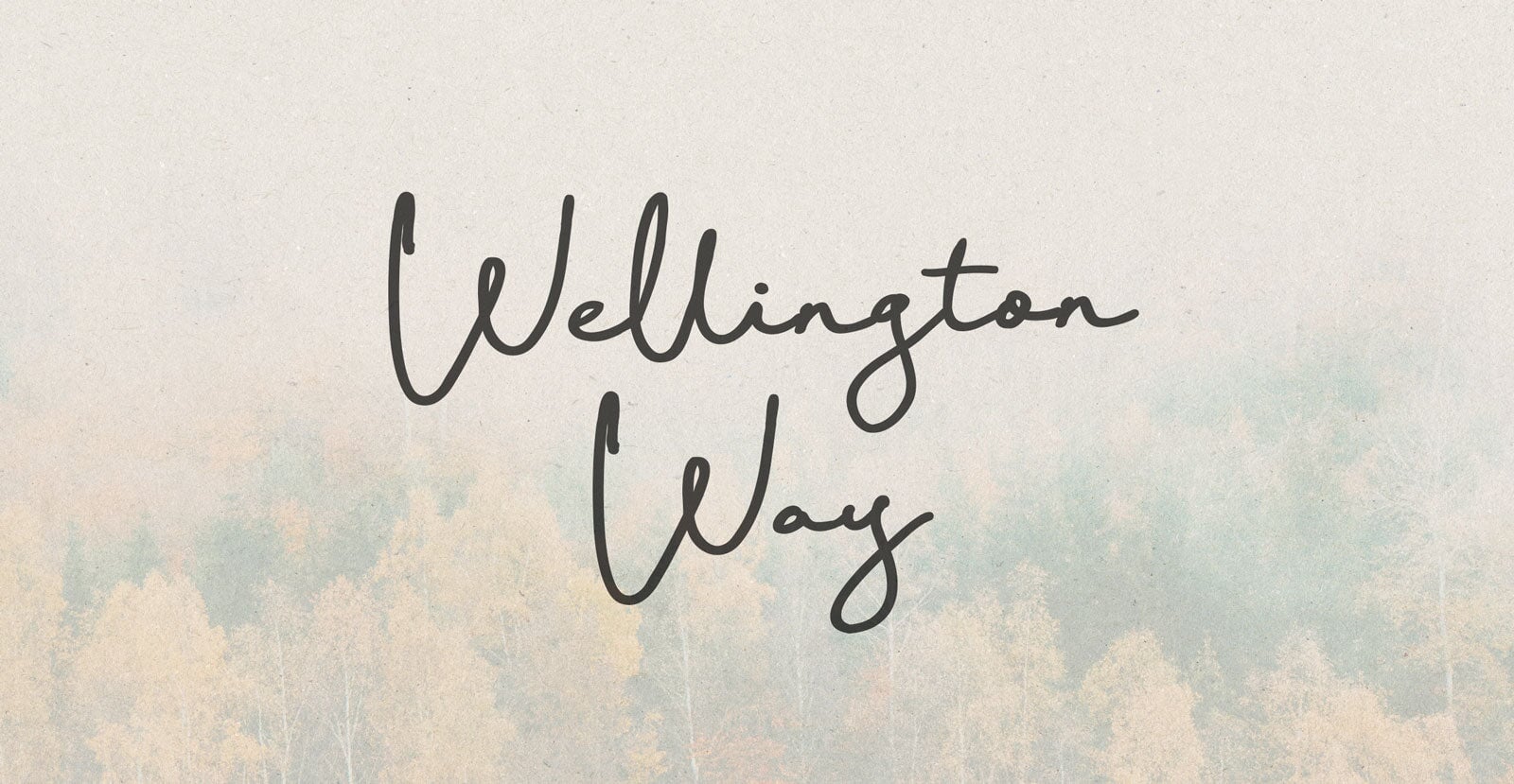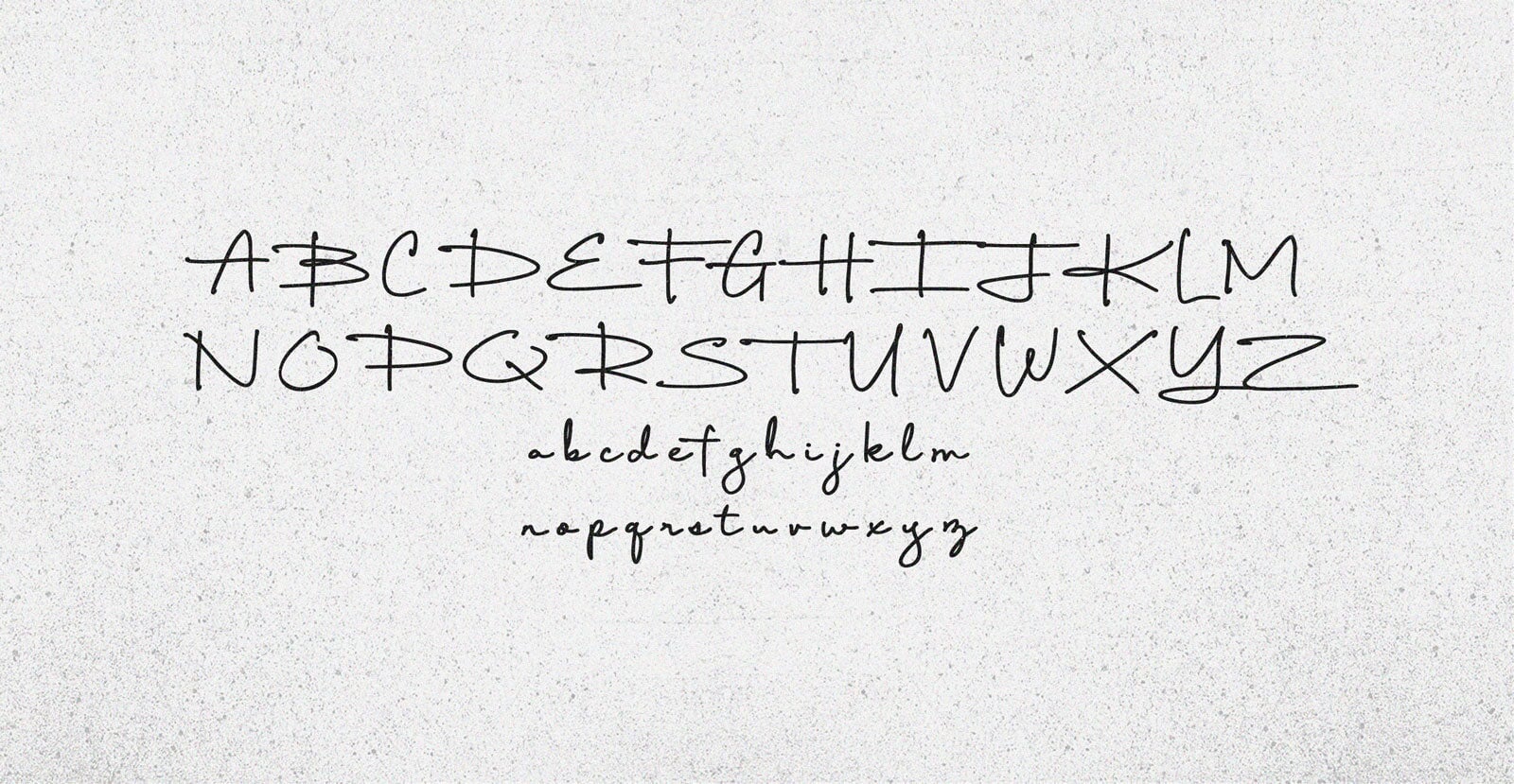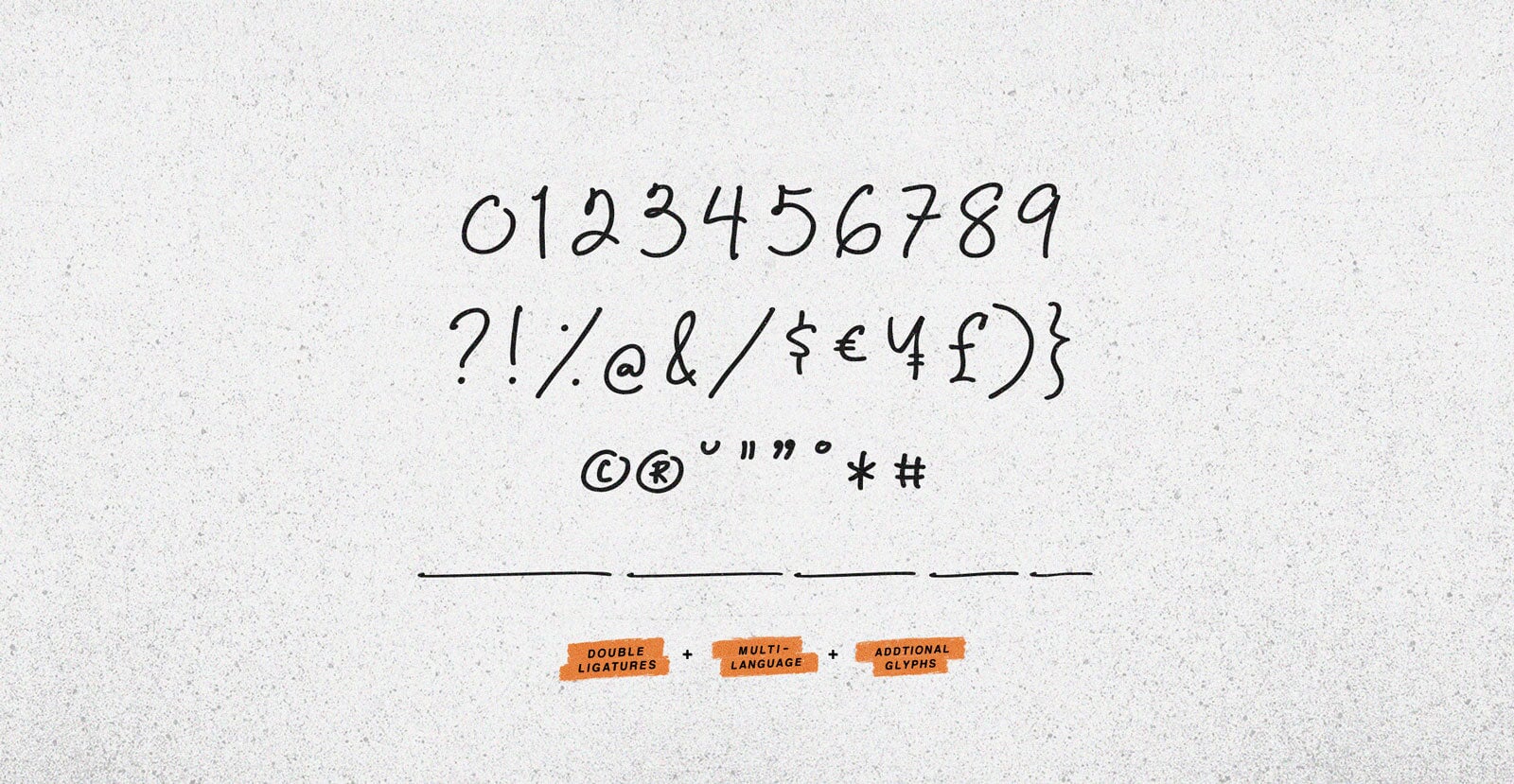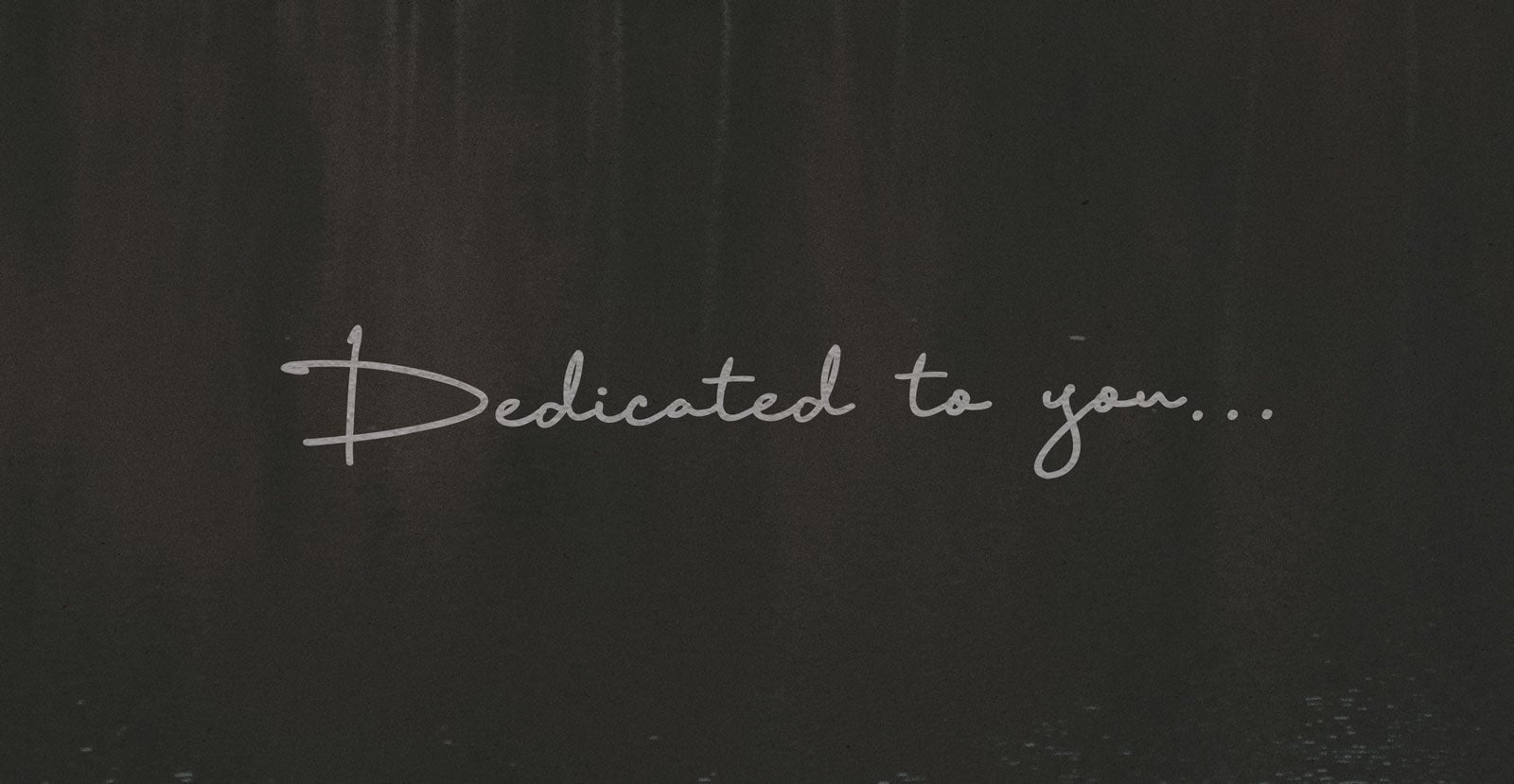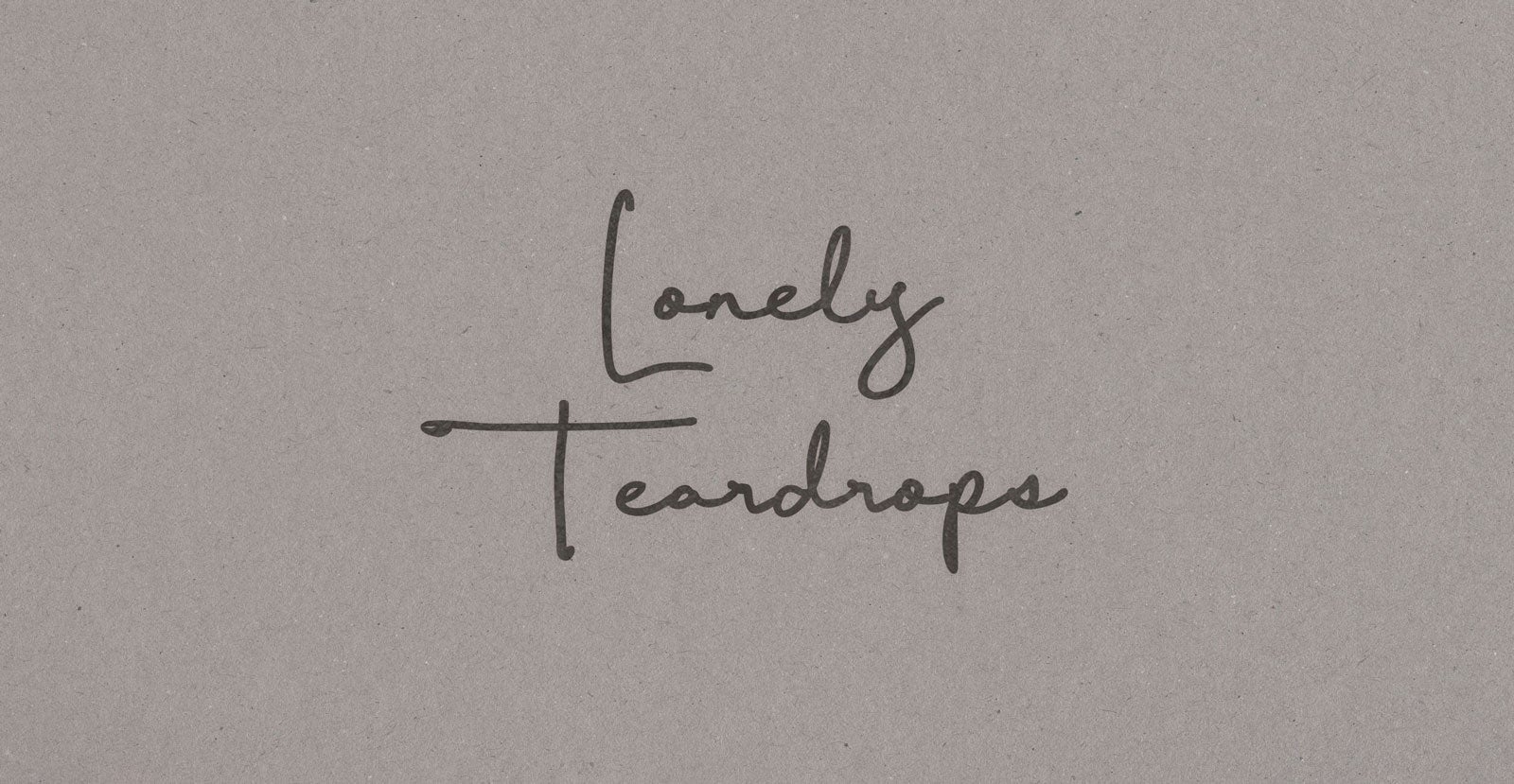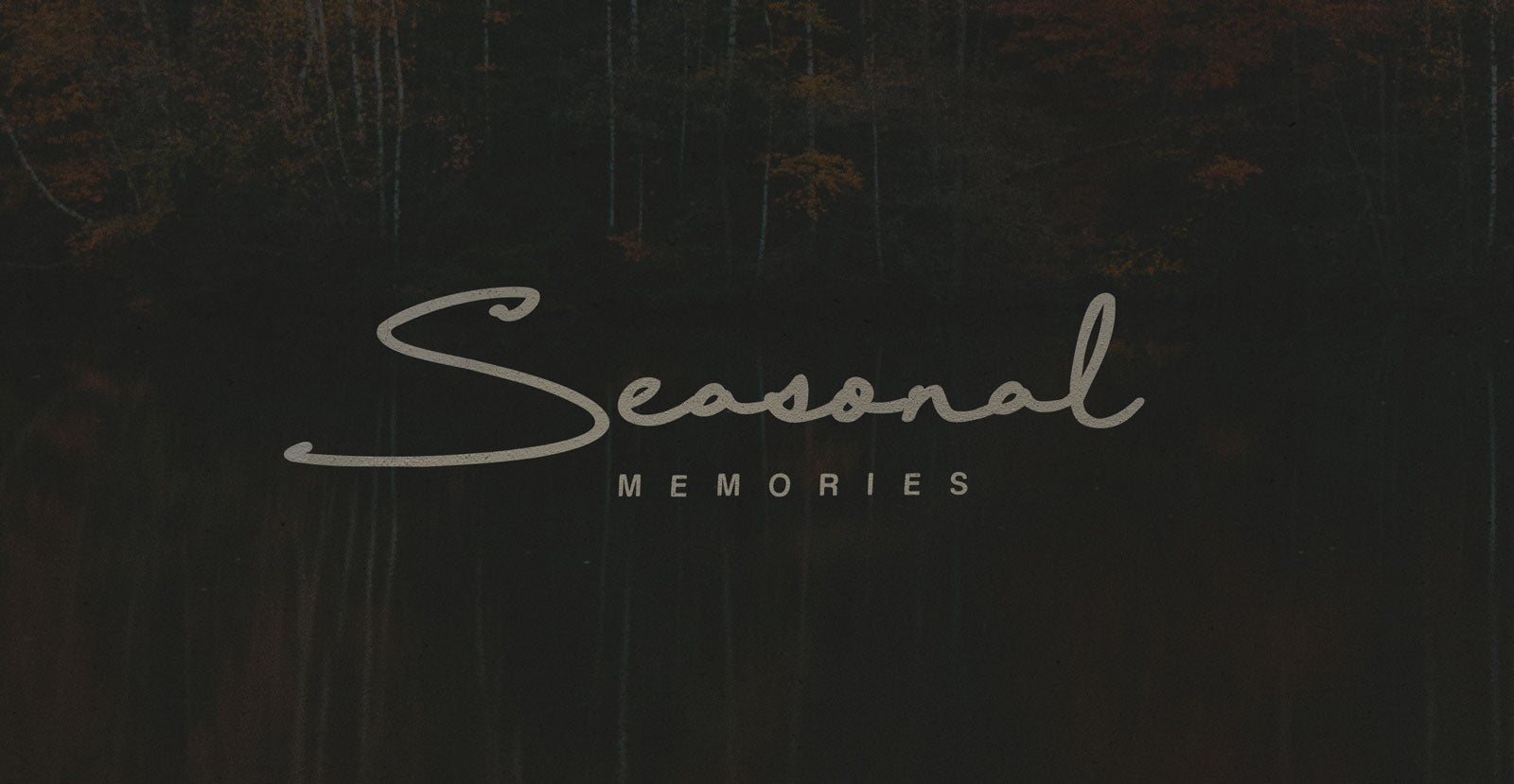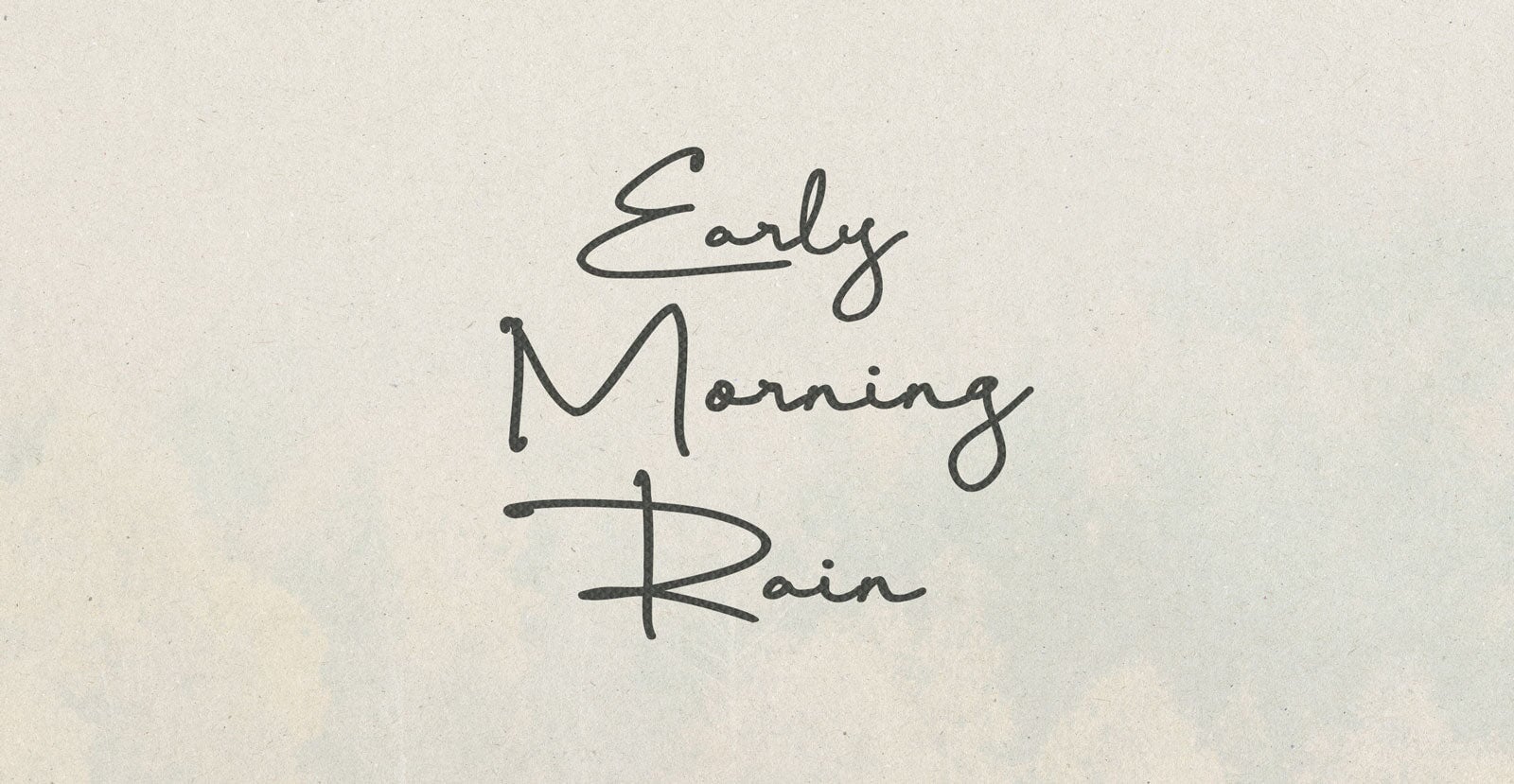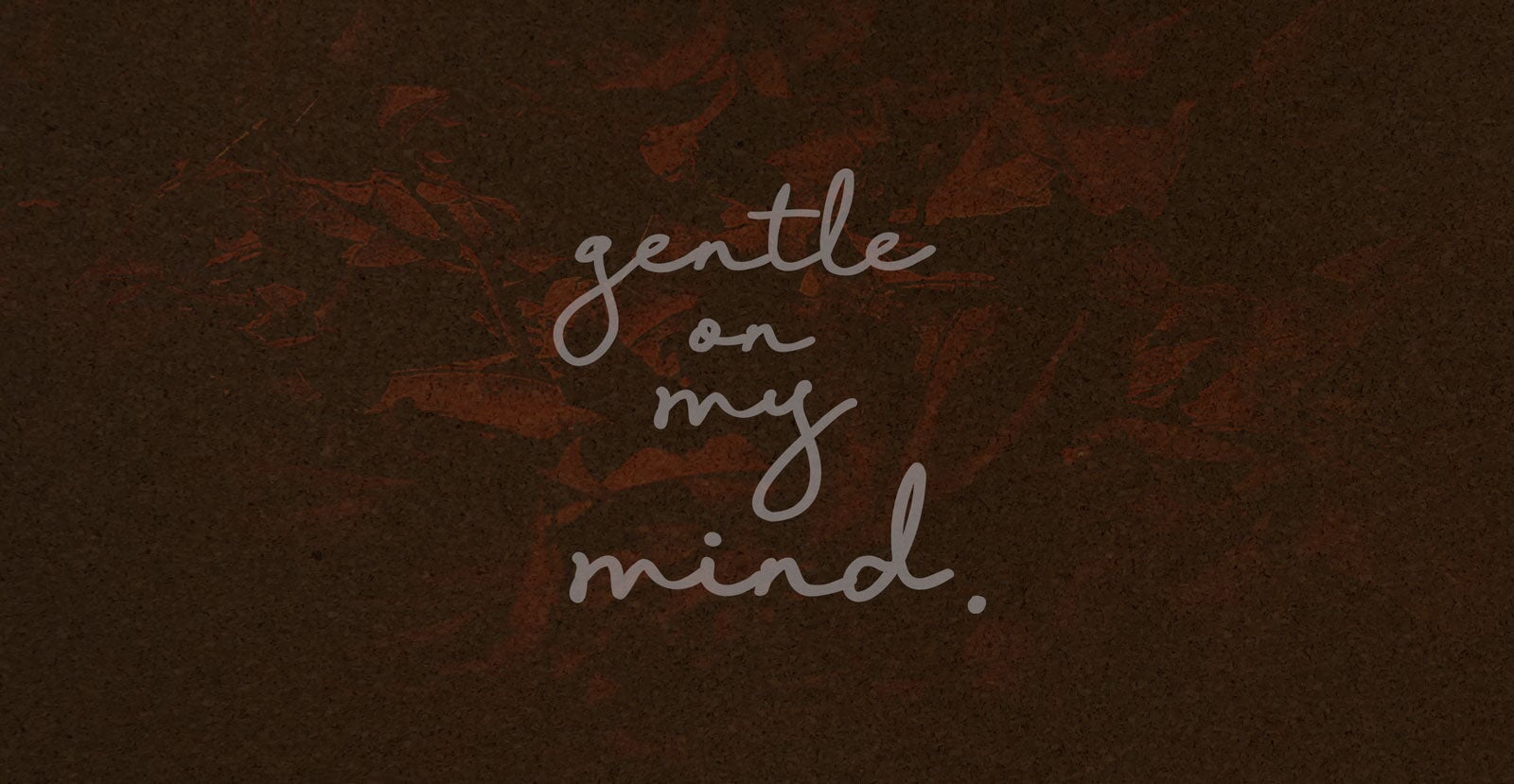
Wellington Way
Handwritten Pen Script Font
Wellington Way moves with composed precision refined and steady. It doesn’t rush, it arrives. A path lined with intent, where every detail is placed with purpose and tradition meets a modern gaze.